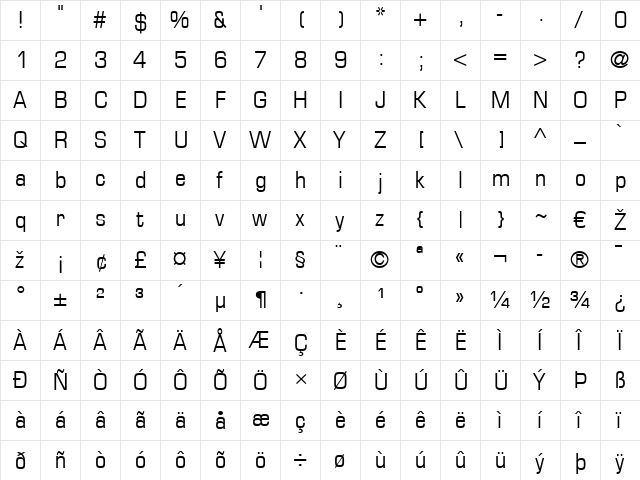
Eurostile LT Condensed Regular Font Preview
Design Context for Eurostile LT Condensed Typeface
Eurostile LT Condensed offers clean, dependable letterforms without strong stylistic allegiance, making it a practical choice for designers who need flexibility. Its slender proportions lend an understated elegance to any composition. The condensed width makes it efficient for tight spaces without sacrificing legibility.